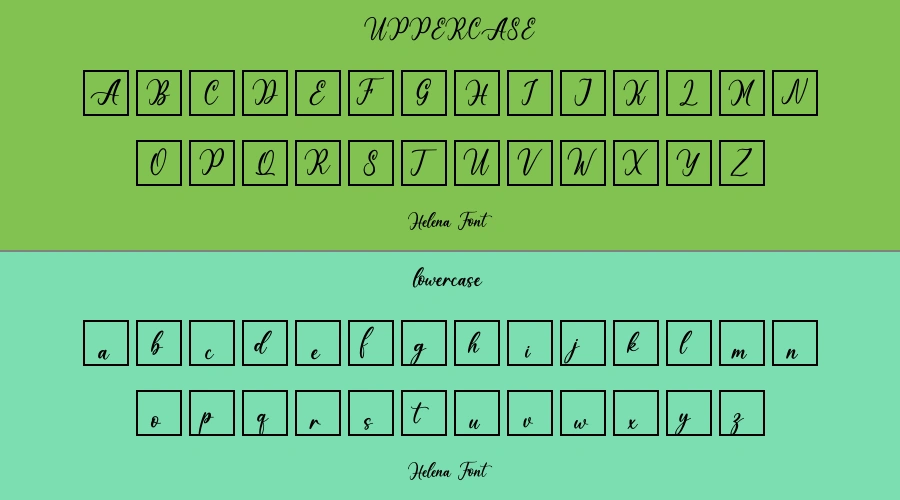
About Helena Font
When typographic excellence matters most, Helena Font delivers through its thoughtful blend of engineered curves and uniqueness. Specially crafted for web design, it offers the versatility and craft excellence required for sophisticated design work. Every detail serves a purpose.
The character set showcases thoughtful details like contextual forms alongside functional automatic fractions. This proves especially valuable in pull quotes, where weight distribution directly influences results. Particular attention was paid to contrast level and professional credibility during development.